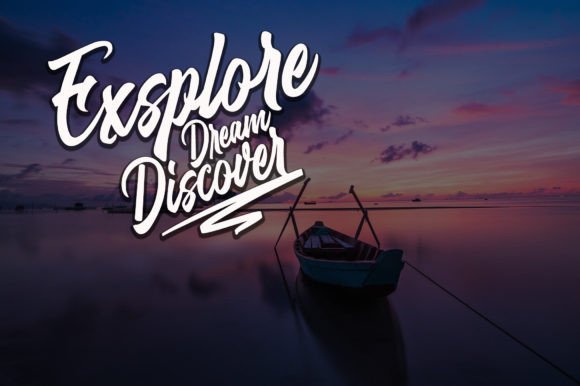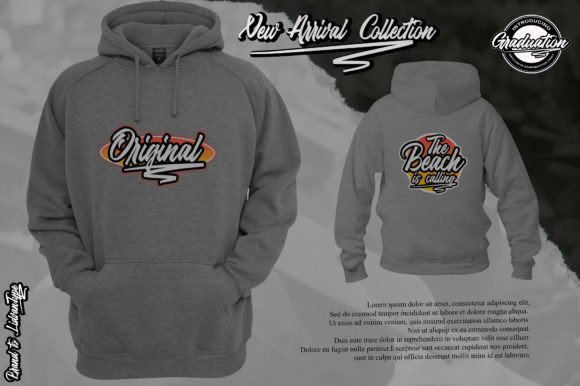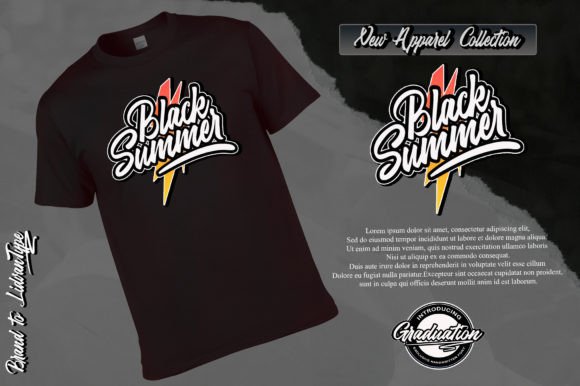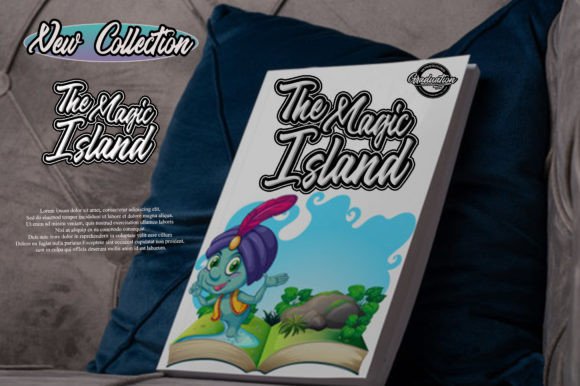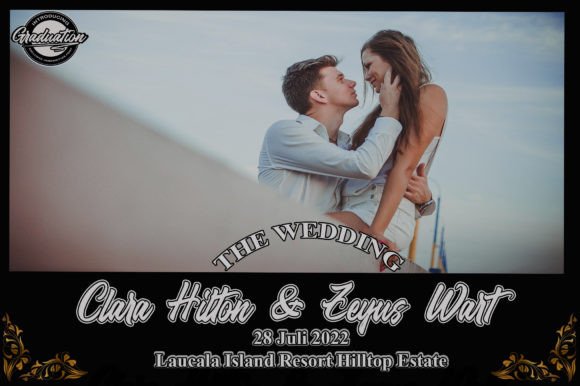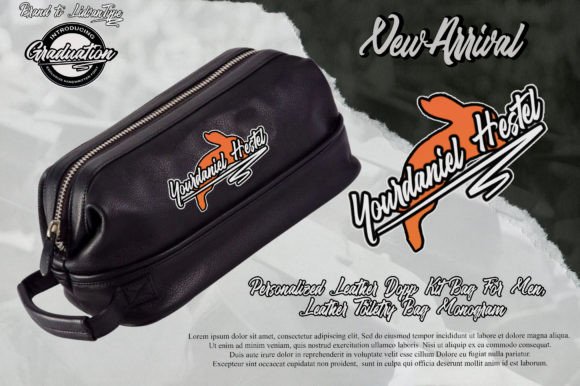
Introducing Graduation Font: Elevate Your Designs with Elegance and Sophistication
Are you a designer or crafter looking for a font that exudes luxury and style? Look no further than Graduation Font, a beautiful handwriting font that is perfect for adding a touch of elegance to any design project. With its perfect shape and stylish lines, Graduation Font is ideal for a wide range of applications, from wedding invitations and thank you cards to logos, business cards, and t-shirt designs.
The Characteristics of Graduation Font
Graduation Font is a true standout in the world of typography. Its elegant handwriting style is characterized by:
- Perfect Shape: Graduation Font features beautifully crafted letters with perfect shape and proportion, making it a joy to read and behold.
- Stylish Lines: The font’s lines are smooth and flowing, giving it a luxurious feel that’s perfect for high-end designs.
- Elegant Handwriting Style: Graduation Font has a sophisticated, handwritten look that’s perfect for designs that require a personal touch.
Uses for Graduation Font
Graduation Font is incredibly versatile, making it suitable for a wide range of design projects, including:
- Wedding Invitations: Add a touch of elegance to your wedding invitations and save the dates with Graduation Font.
- Thank You Cards: Express your gratitude in style with Graduation Font, perfect for thank you cards and other correspondence.
- Quote and Greeting Cards: Use Graduation Font to add a touch of sophistication to your quote and greeting cards.
- Logo Design: Create a luxurious logo for your business or brand with Graduation Font.
- Business Cards: Stand out from the crowd with Graduation Font on your business cards.
- T-Shirt Design: Add a touch of elegance to your t-shirt designs with Graduation Font.
Why Choose Graduation Font?
So why choose Graduation Font for your design projects? Here are just a few reasons:
- Unique and Eye-Catching: Graduation Font is a unique and eye-catching font that will set your designs apart from the crowd.
- High-Quality: Graduation Font is a high-quality font that is designed to produce crisp, clear results.
- Easy to Read: Despite its elegant style, Graduation Font is easy to read, making it perfect for designs that require a clear message.
- Versatile: Graduation Font is incredibly versatile, making it suitable for a wide range of design projects.
Tips for Using Graduation Font
Here are a few tips for getting the most out of Graduation Font:
- Use it Sparingly: Graduation Font is a bold font, so use it sparingly to avoid overwhelming your design.
- Pair it with Other Fonts: Graduation Font pairs well with other fonts, so don’t be afraid to experiment with different combinations.
- Adjust the Size: Adjust the size of Graduation Font to create visual interest and hierarchy in your design.
In conclusion, Graduation Font is a beautiful and elegant handwriting font that is perfect for designers and crafters looking to add a touch of luxury to their design projects. With its perfect shape, stylish lines, and elegant handwriting style, Graduation Font is ideal for a wide range of applications. Whether you’re designing wedding invitations, logos, or t-shirt designs, Graduation Font is sure to impress.